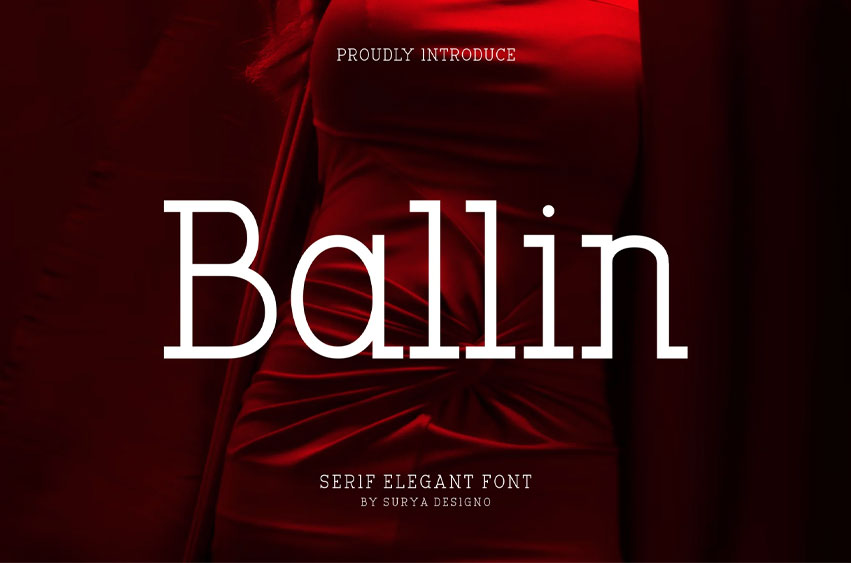
Ballin Font
Ballin Font Modern Font is a bold and authentic display font. The font is suitable for any branding project like logo, t-shirt printing, esport, and many more. outstanding in a wide range of contexts.